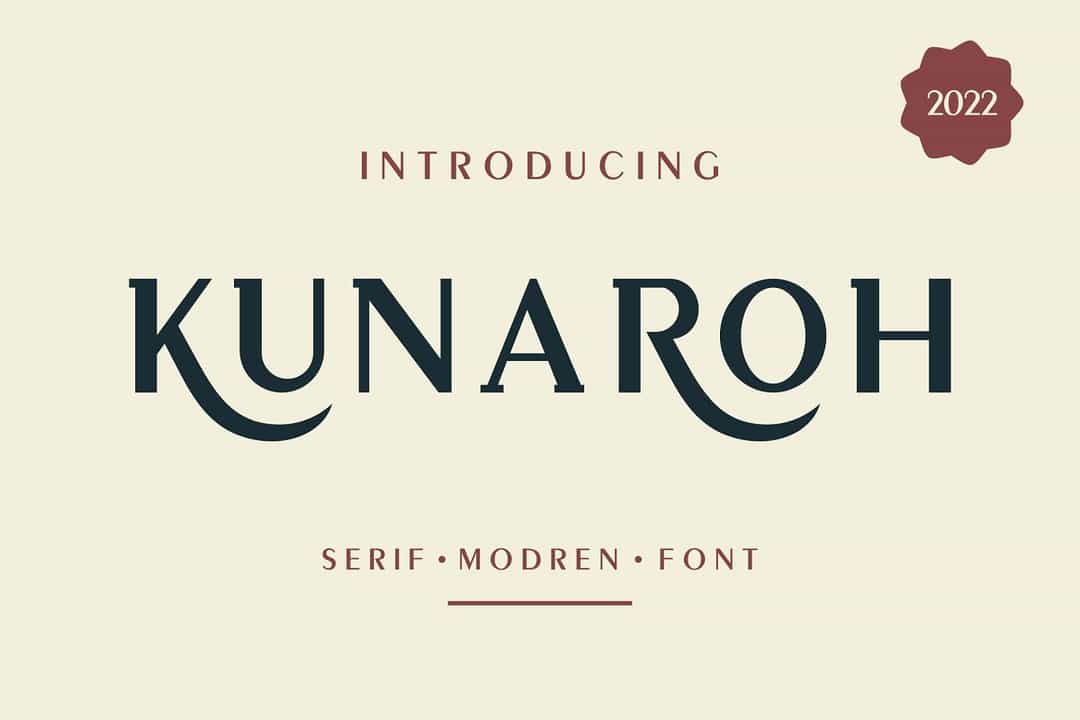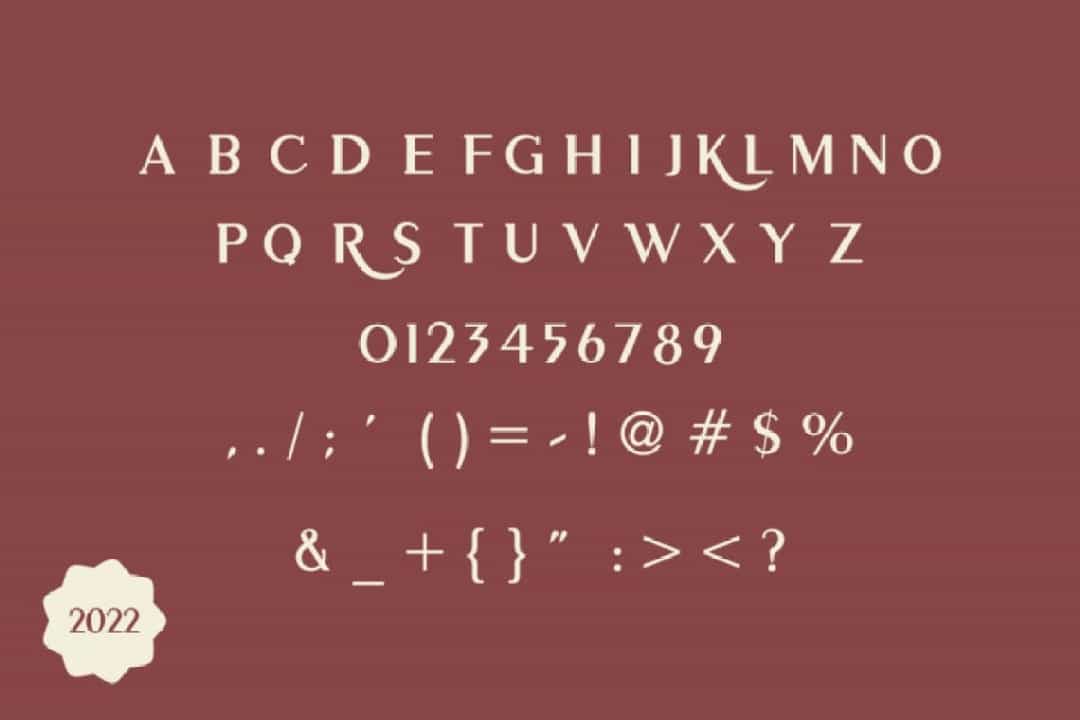
Kunaroh is an innovative serif font, featuring an eye-catching and authentic design. Perfect for branding projects such as T-shirt printing, logos and sports jerseys; its stunning appearance stands out in any setting.